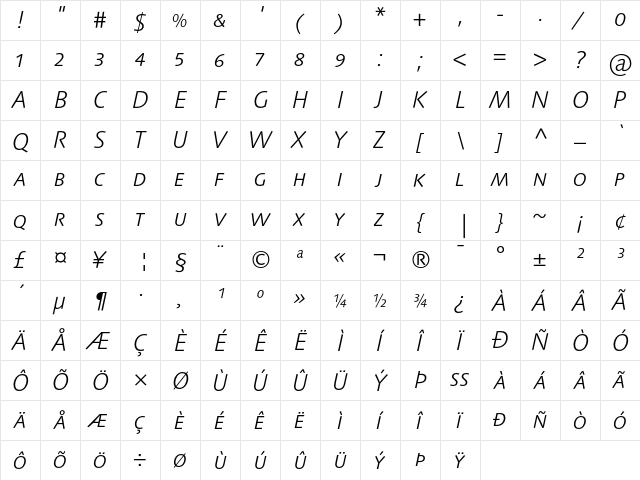
LinotypeSyntaxSC LightIt
Design Context for LinotypeSyntaxSC Typeface
LinotypeSyntaxSC is a composed and adaptable typeface that performs quietly and consistently across a wide range of design contexts. Its slender proportions lend an understated elegance to any composition.